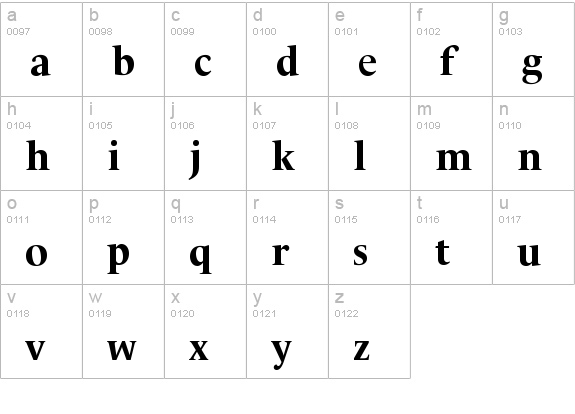
LeMondeLivre Bold is a strong, high-contrast variant in the LeMondeLivre typeface family \xE2\x80\x94 well suited to headlines, attention-grabbing titles, and strong calls-to-action.
Introducing LeMondeLivre Bold, a captivating and versatile font that effortlessly combines sophistication with a touch of boldness. This font is the perfect choice for those seeking to make a statement with their typography. With its clean lines and strong presence, LeMondeLivre Bold commands attention and leaves a lasting impression. What sets LeMondeLivre Bold apart is not only its impeccable design but also its availability. This font is freely available to download at FontsMarket.com, allowing users to access its stunning features without any limitations. Whether you're a professional designer or a casual user looking to elevate your designs, LeMondeLivre Bold guarantees a seamless and enjoyable experience. Drawing inspiration from classic typography, LeMondeLivre Bold exudes timeless elegance. Its bold strokes and carefully crafted curves create a harmonious balance that is both visually striking and easy to read. This font is the embodiment of confidence, making it an excellent choice for headlines, logos, branding materials, and more. Versatility is another key feature of LeMondeLivre Bold. It effortlessly adapts to various design styles, seamlessly blending in with both modern and traditional aesthetics. Its clean and legible characters ensure readability across different mediums, whether it's print or digital. LeMondeLivre Bold is more than just a font; it's a tool that empowers creativity. Its extensive character set includes uppercase and lowercase letters, numerals, punctuation marks, and special glyphs. This allows users to explore endless possibilities and unleash their imagination. So why wait? Download LeMondeLivre Bold today from FontsMarket.com and experience the freedom of exceptional typography. Let this font be the catalyst for your design journey, enabling you to create stunning visuals that leave a lasting impression. With LeMondeLivre Bold, the possibilities are limitless, and the results are bound to be extraordinary.